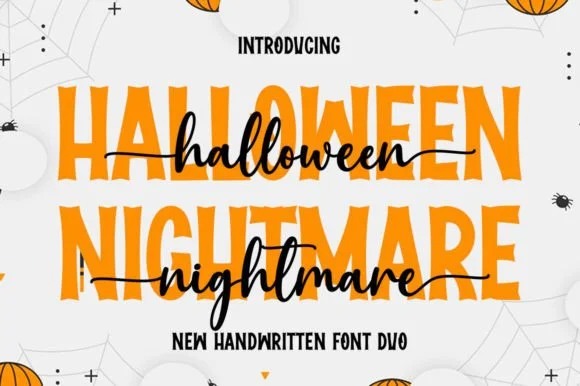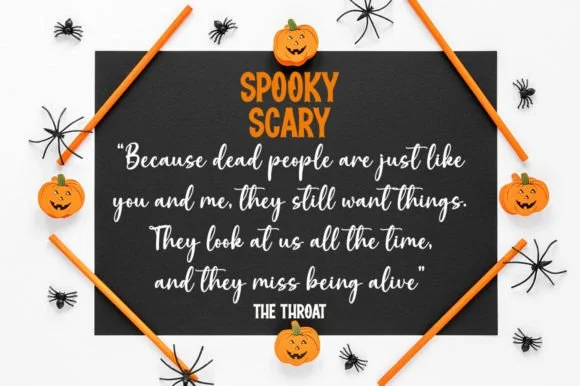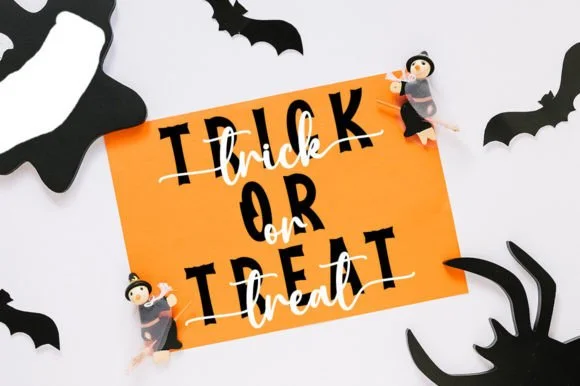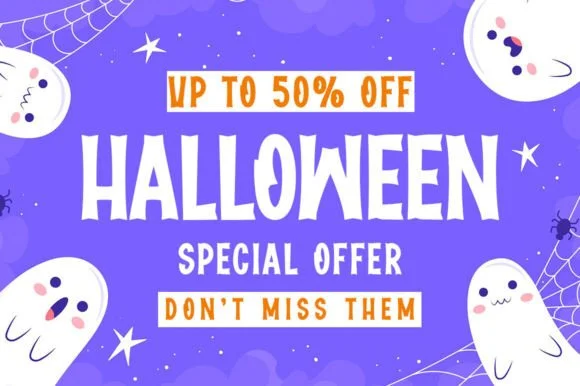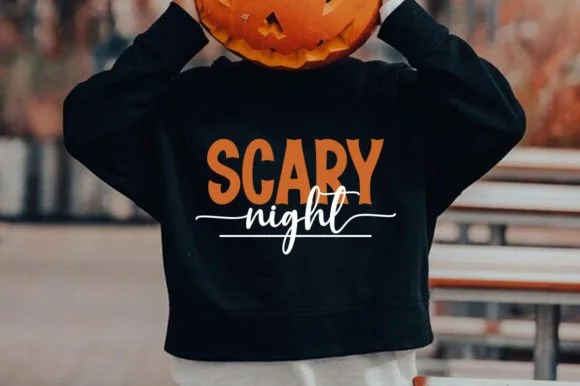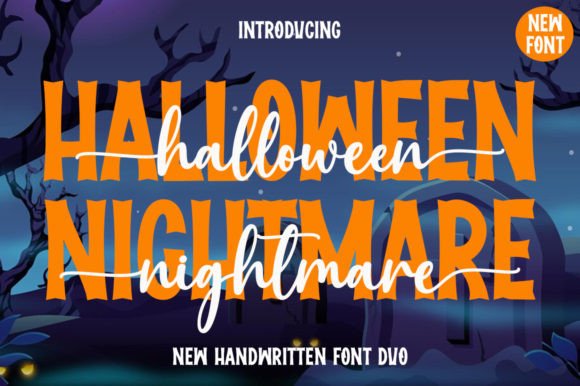
Halloween Nightmare Duo Font
This dual font is perfect for nightmare-themed Halloween events, horror dream celebrations, psychological terror displays, dual personality Halloween parties, nightmare horror marketing, sleep terror attractions, dream horror branding, psychological Halloween decorations, nightmare costume events, and disturbingly dual Halloween messaging materials.
Halloween Nightmare Duo Font is exciting because it captures the psychological complexity and disturbing duality of nightmares through its ingeniously crafted dual letterforms that seem to shift between reality and terror like the unsettling experience of being trapped in a dream that transforms from pleasant to horrifying. The font features two complementary character sets with nightmare proportions and dream-terror details that evoke the spine-chilling atmosphere of sleep paralysis and recurring nightmares where familiar becomes frightening and safety dissolves into terror, incorporating dual flourishes and psychological elements that create typography as mentally unsettling and memorably disturbing as the moment when a peaceful dream becomes a nightmare that lingers long after waking. Each letter pair showcases the terrifying transformation and psychological complexity that makes nightmare themes so effective in creating lasting psychological impact, with dual curves and terror accents that transform ordinary text into expressions of dream horror that capture the way nightmares tap into our deepest fears and most vulnerable psychological states.
The Halloween Nightmare Duo Font family includes psychologically complex variations: Regular, Bold, Light, Terror, and Dream versions. The collection features special dual elements including nightmare accents, terror flourishes, psychological details, and dual ornaments. Additional components include nightmare borders, terror frames, psychological decorations, and disturbingly dual ornamental designs that enhance the font's Halloween nightmare duo appeal and create cohesive psychological horror themes.
Psychological horror creators and nightmare event planners will find Halloween Nightmare Duo Font to be an invaluable resource for creating authentically disturbing Halloween communications that tap into the deep psychological terror and complex duality that make nightmare themes so powerfully effective in creating lasting fear responses. This psychologically crafted font transforms ordinary Halloween messaging into nightmare expressions that resonate with mature audiences seeking genuinely disturbing and psychologically complex Halloween experiences that explore the darker territories of human consciousness and fear.
The typeface includes comprehensive character support with dual nightmare styling that maintains excellent readability while conveying the psychological complexity and terror atmosphere of nightmare-themed Halloween celebrations. The font's disturbingly dual design ensures psychologically compelling results across both amateur nightmare applications and professional psychological horror productions.
Perfect for psychological horror events, nightmare celebrations, terror attractions, and disturbingly complex seasonal marketing, this font delivers psychologically disturbing visual impact that communicates mental terror, psychological complexity, and the profoundly unsettling truth that our own minds can be the source of our most terrifying Halloween experiences.